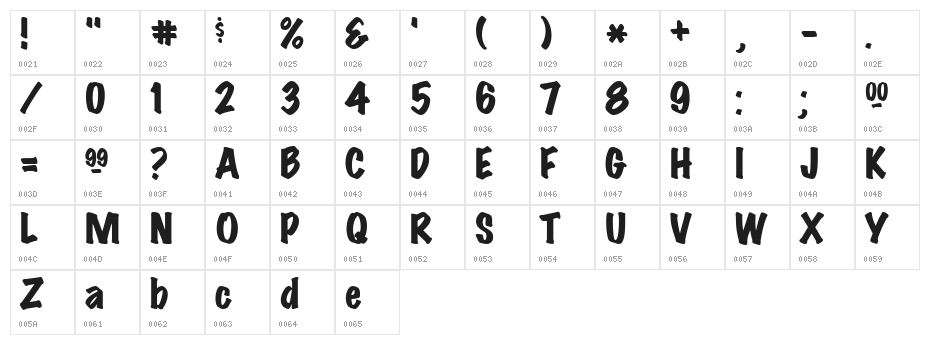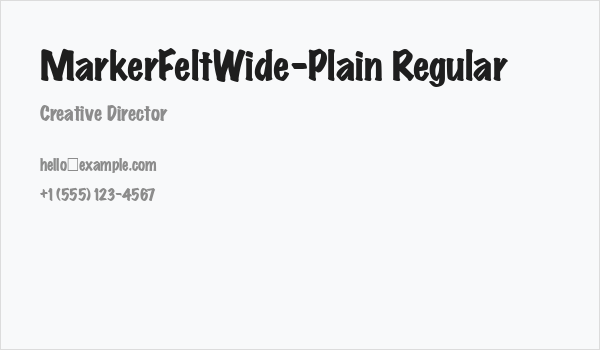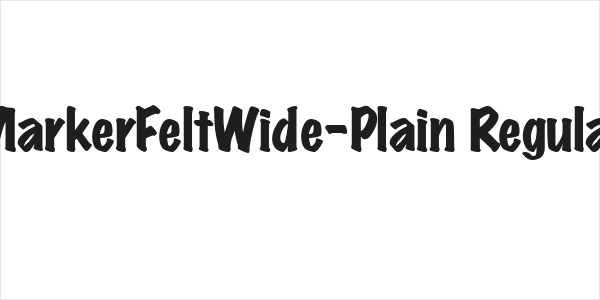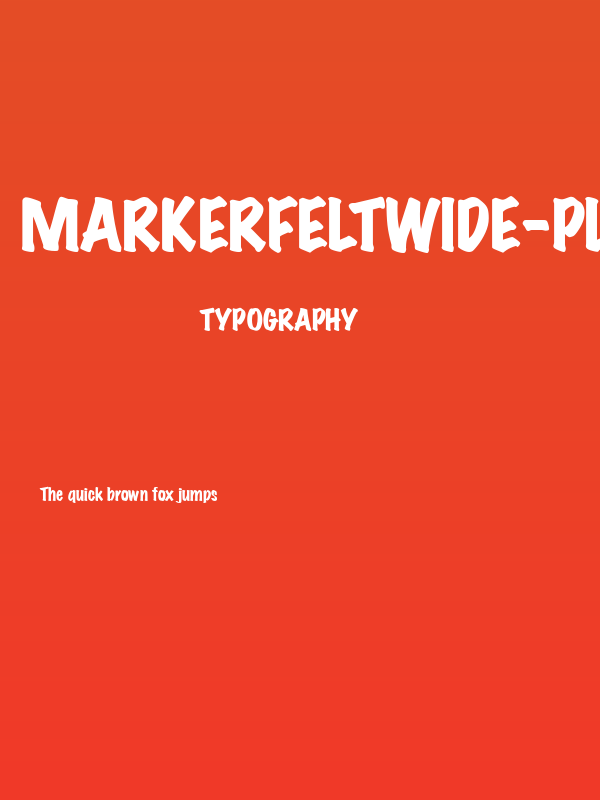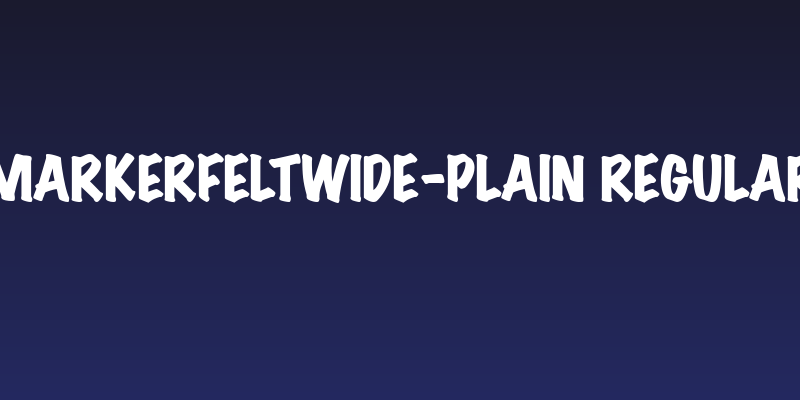
MarkerFeltWide-Plain Regular Font
MarkerFeltWide-Plain Regular Description
This font exudes a playful and casual vibe, reminiscent of hand-drawn lettering with a felt-tip marker. The characters are bold and wide, giving them a strong presence on the page. Each letter has a slightly irregular shape, adding to the informal and friendly appearance. The strokes are consistent in width, providing a uniform look across all characters. The font includes a full set of uppercase and lowercase letters, numbers, and a variety of special characters, making it versatile for different uses. Its unique style makes it stand out, perfect for projects that require a touch of personality and creativity.
| Width | Expanded |
| Overall Style | Casual, Playful |
| Proposed Projects | Ideal for children's books, posters, greeting cards, and any project needing a fun, informal touch. |